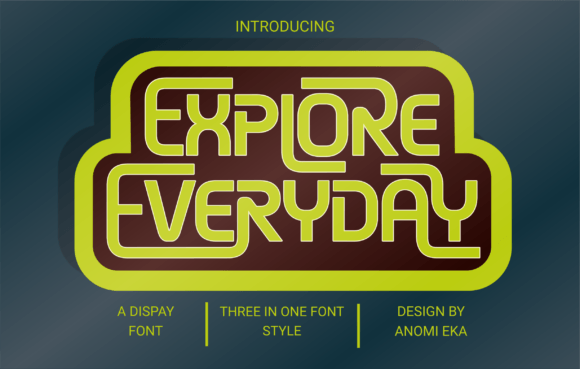
Meet Explore Everyday Font - Unleash the Dynamic Spirit in Your Designs!
In a world saturated with ordinary fonts, Explore Everyday emerges as a breath of fresh air, ready to ignite your creativity and leave an unforgettable impact. This display font, meticulously crafted by the talented AnomiEka, is a symphony of energy and power, capturing the essence of speed, motion, and limitless possibilities.
Picture this: a movie poster that pulsates with adrenaline, a sports jersey that exudes athleticism, or a racing design that embodies the thrill of the chase. Explore Everyday Font is your secret weapon to bring these visions to life. Its bold, assertive strokes command attention, while its unique, overlapping glyphs create a captivating visual dance.
Are you a designer seeking to make a bold statement? A marketer yearning to leave a lasting impression? Or simply an individual with a passion for typography? Explore Everyday Font is your answer. Its versatility extends beyond traditional boundaries, making it the perfect choice for logos that demand attention, branding that radiates confidence, and social media posts that spark engagement.
With Explore Everyday Font, you're not just downloading a font; you're embracing a creative revolution. It's a font that ignites your imagination, propels your designs to new heights, and leaves your audience in awe. So, dive into the world of Explore Everyday Font and unleash the dynamic spirit within your creative projects.
And remember, Explore Everyday Font truly shines when displayed at larger sizes, allowing its intricate details and energetic flow to captivate your audience.